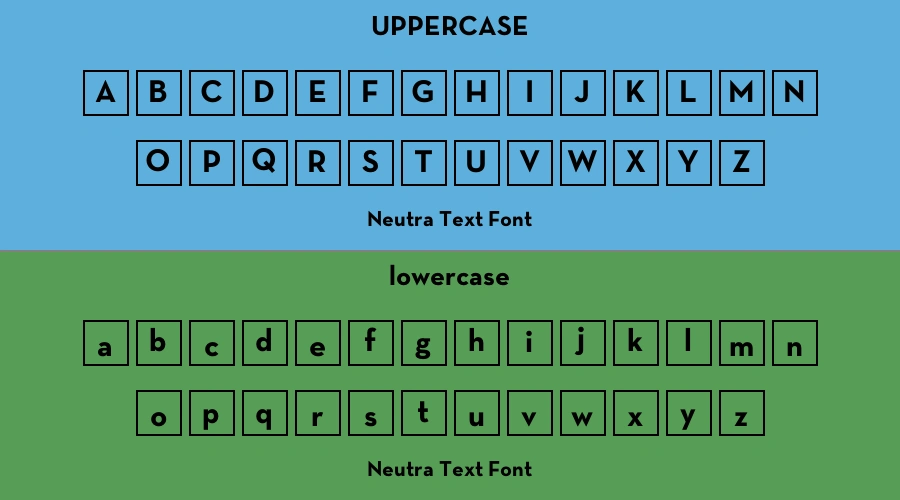
About Neutra Text Font
Neutra Text Font embodies typographic excellence through its masterful combination of circular bowls and technical excellence. Created for brand launches, this typeface delivers exceptional reliability and practical utility across all applications. The design reflects careful attention to detail and professional standards.
Advanced capabilities include distinctive assertive angles and versatile dingbat elements, giving designers creative control. When used in sidebars, Neutra Text Font exhibits remarkable language switching. The harmonious balance between stem weight and character sets this typeface apart.